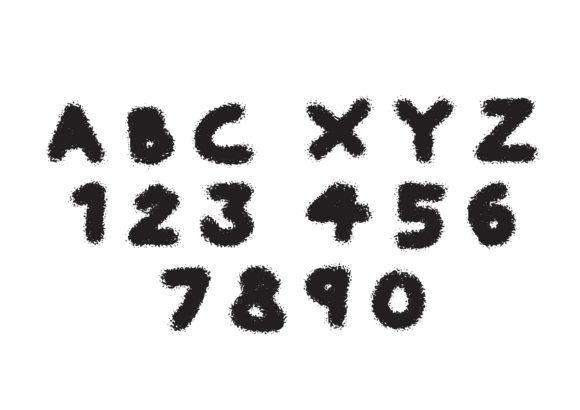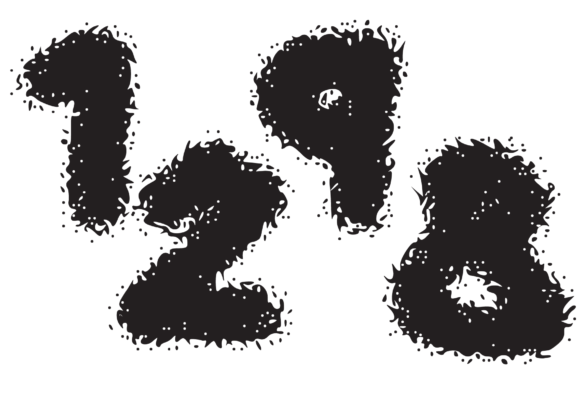
The Font that Saved my Sanity: A Deep Dive into Fuz Font
I still remember the design project that had me pulling my hair out. I was working on a branding campaign for a trendy new coffee shop, and I just couldn’t find the right font. The client wanted something modern, yet edgy; elegant, yet playful. I spent hours scouring font libraries, but nothing seemed quite right. That’s when I stumbled upon Fuz Font, and my design woes disappeared instantly.
First Impressions: A Cool and Brushed Display Font
Fuz Font is a cool and brushed display font that’s perfect for designers, crafters, and creative hobbyists. Its unique blend of elegance and playfulness makes it an incredible asset to any font library. Whether you’re working on a branding project, a craft project, or just a fun design experiment, Fuz Font has the potential to elevate any creation.
- ✨ Unique and eye-catching design that’s perfect for making a statement
- ✅ Highly versatile and adaptable to different design contexts
- 💡 Excellent for use in titles, headings, and other display text
- 🎉 Supports OpenType features, glyphs, and stylistic alternates for added creativity
- 🤔 May not be the best choice for body text or long-form content due to its bold and decorative nature
- ⚠️ Some users may find the font’s distressed texture a bit too rough or gritty for certain design applications
Designer Inspiration: The Story Behind Fuz Font
Fuz Font was designed by a team of creatives who wanted to create a font that would capture the essence of urban grit and sophistication. Inspired by the city’s streets, architecture, and culture, Fuz Font is a reflection of the modern world’s edgy and eclectic vibe.
Q: What is Fuz Font best used for?
A: Fuz Font is best used for titles, headings, and other display text where a bold and eye-catching font is needed.
Q: Is Fuz Font suitable for body text or long-form content?
A: No, Fuz Font is not recommended for body text or long-form content due to its bold and decorative nature.